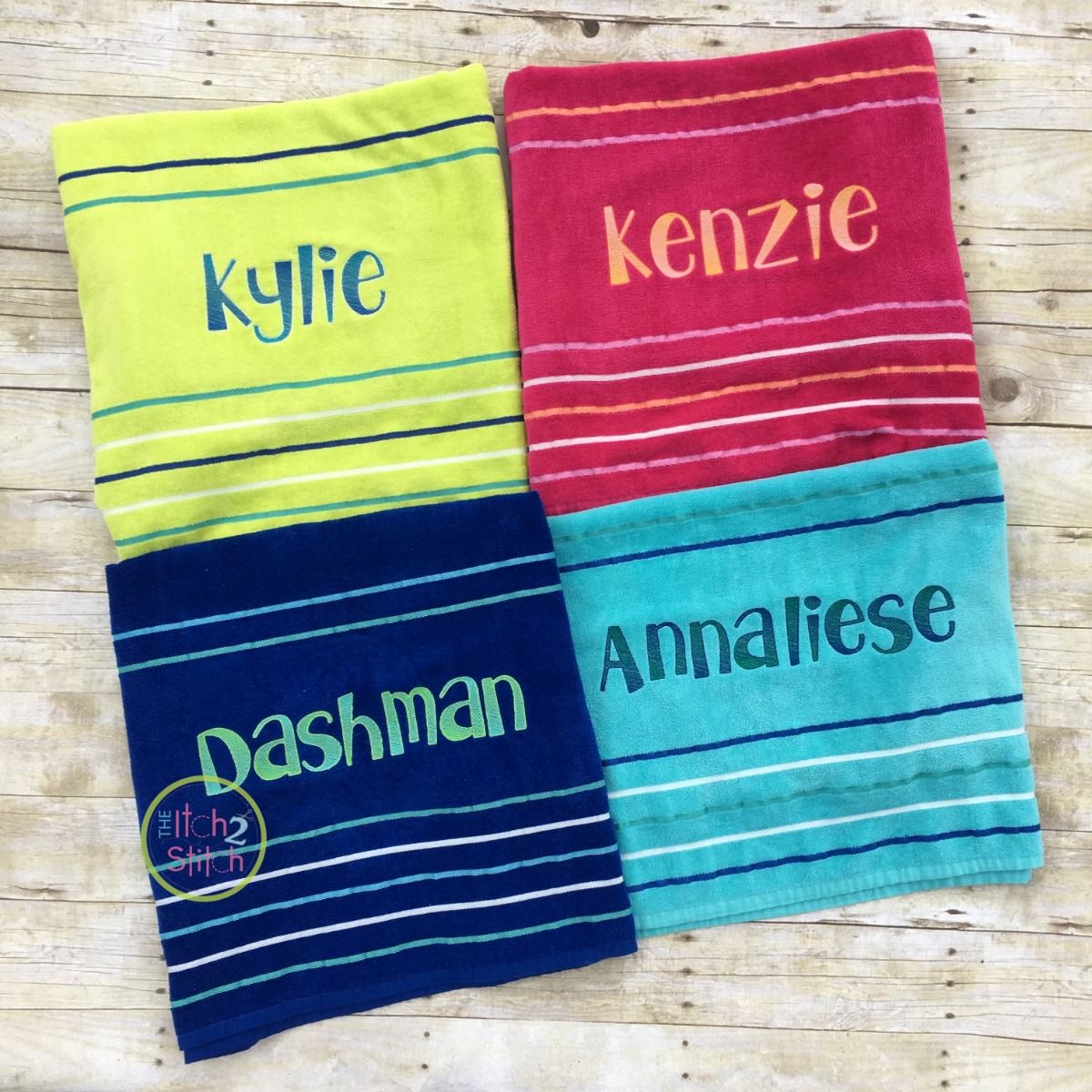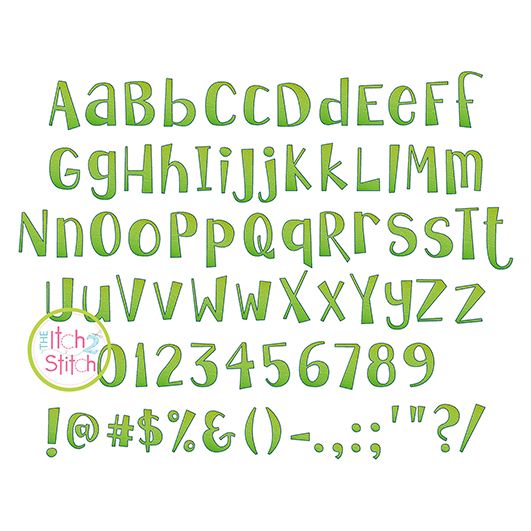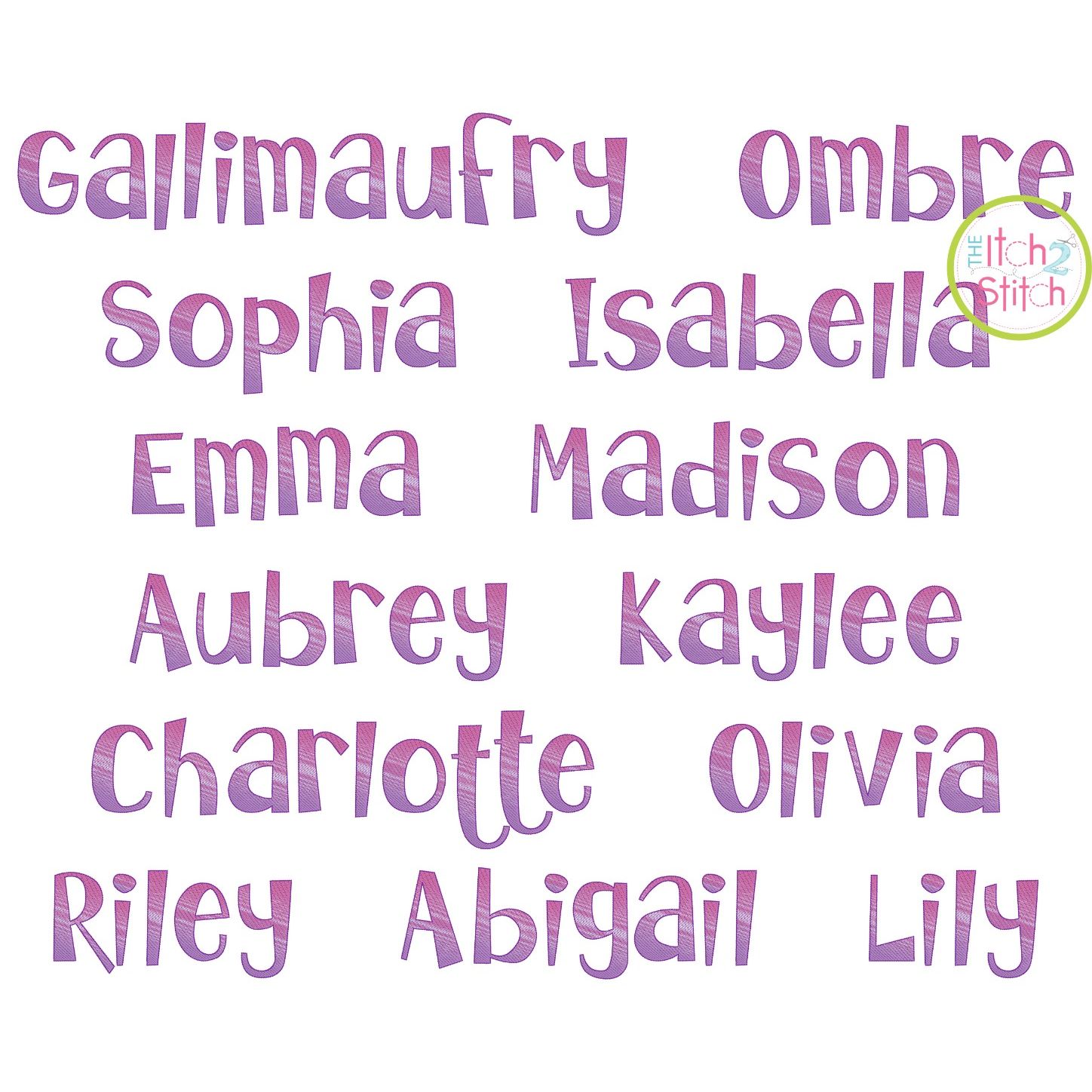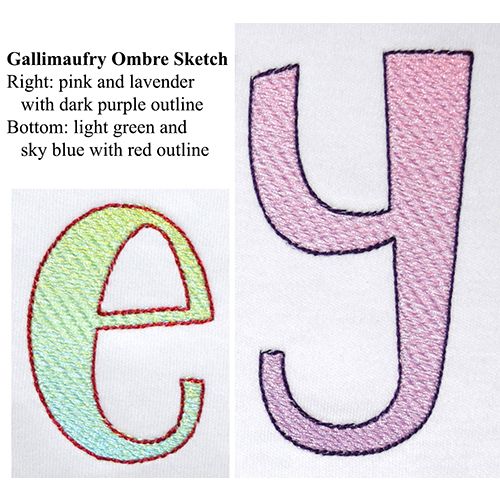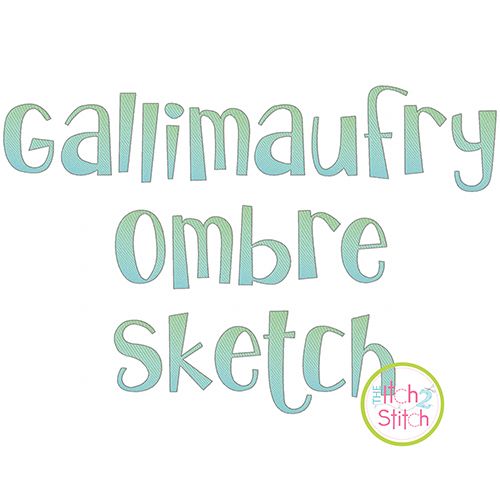
Gallimaufry Ombre Sketch Embroidery Font
Please note this is not applique nor is it a traditional satin or fill stitch font. The light and airy "sketch" fill pattern allows for a quick stitch out. The space between each line of stitching varies and the two colors combine to create the ombre effect. The letters have a bean stitch outline in a third color.
The ombre effect works best if the first and second colors are different, but side by side on the color wheel. The ombre effect will be stronger if the first color is lighter than the second; the ombre effect will be more subtle if the two colors are similar in tint or shade. Please refer to sample images in our listing for multiple examples.